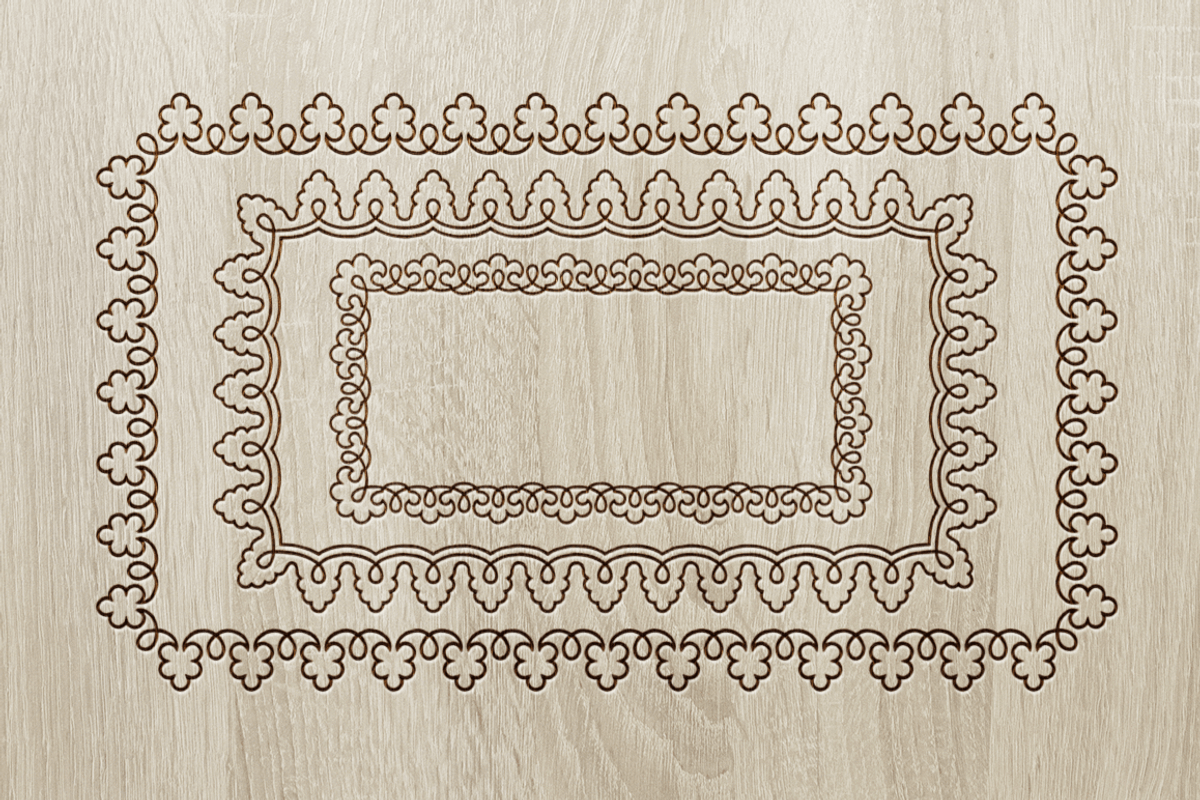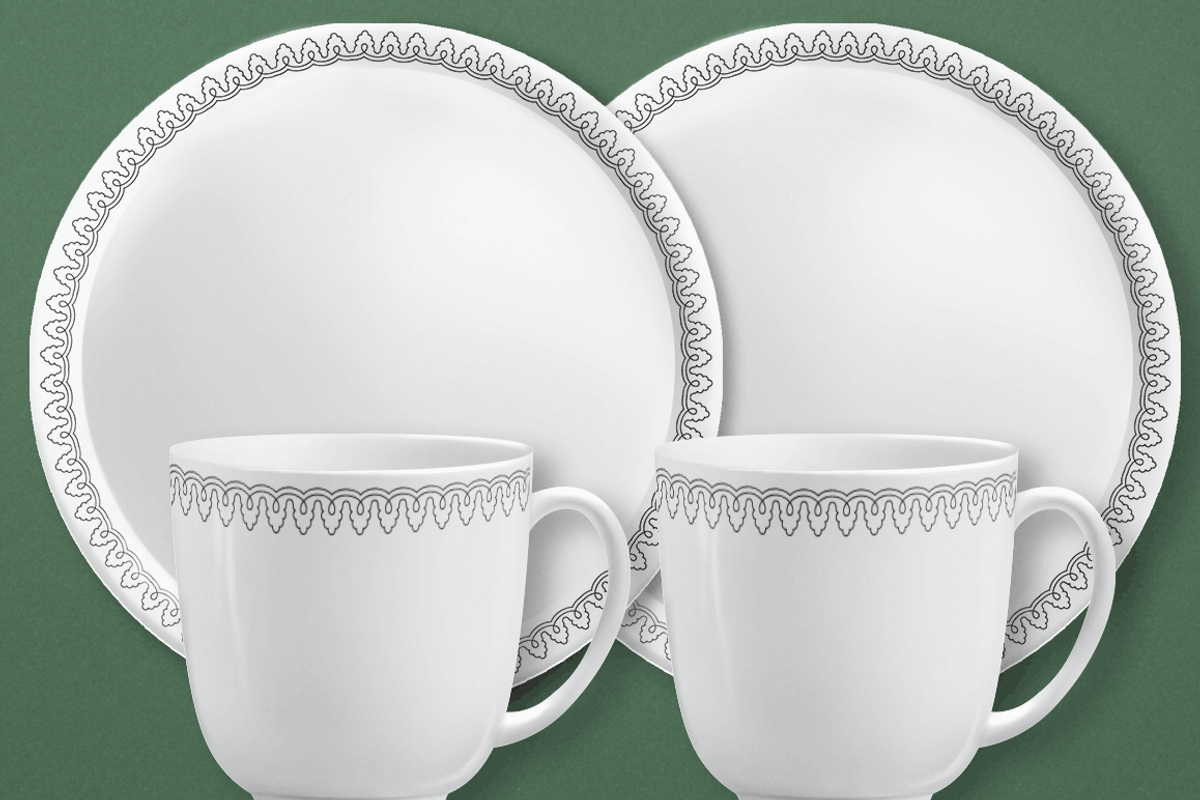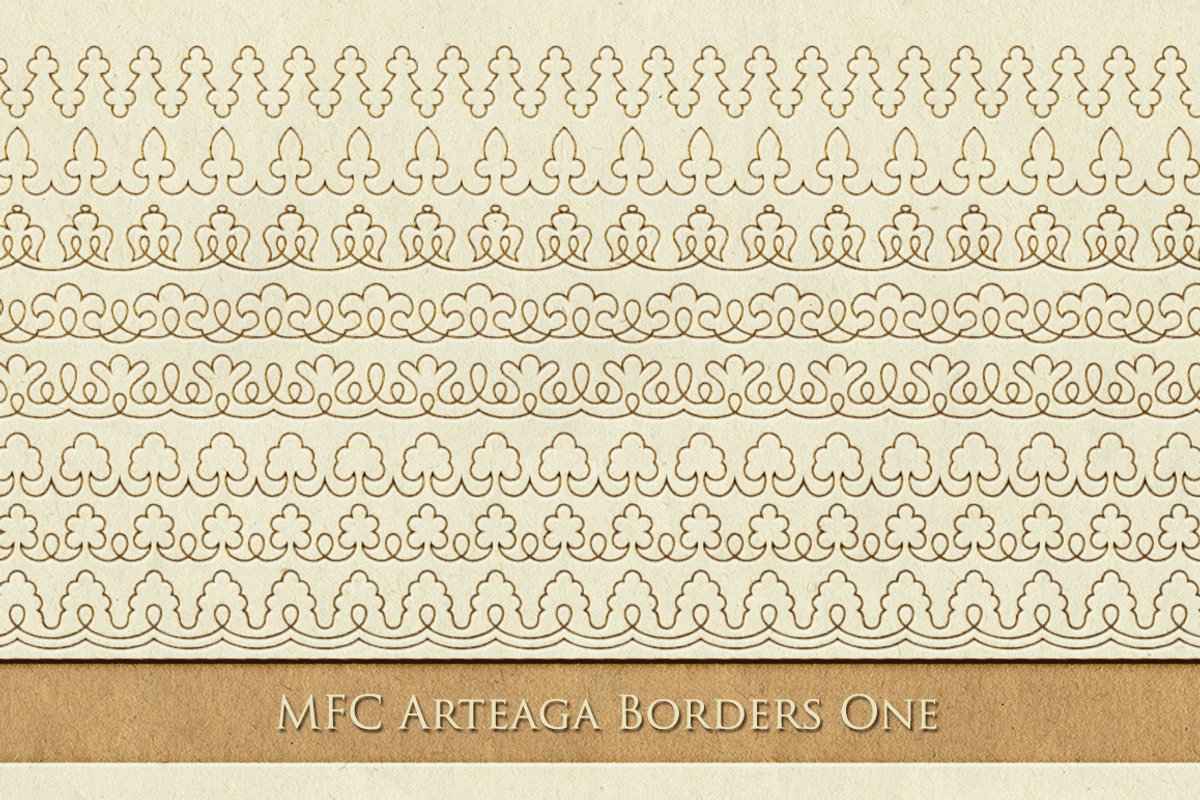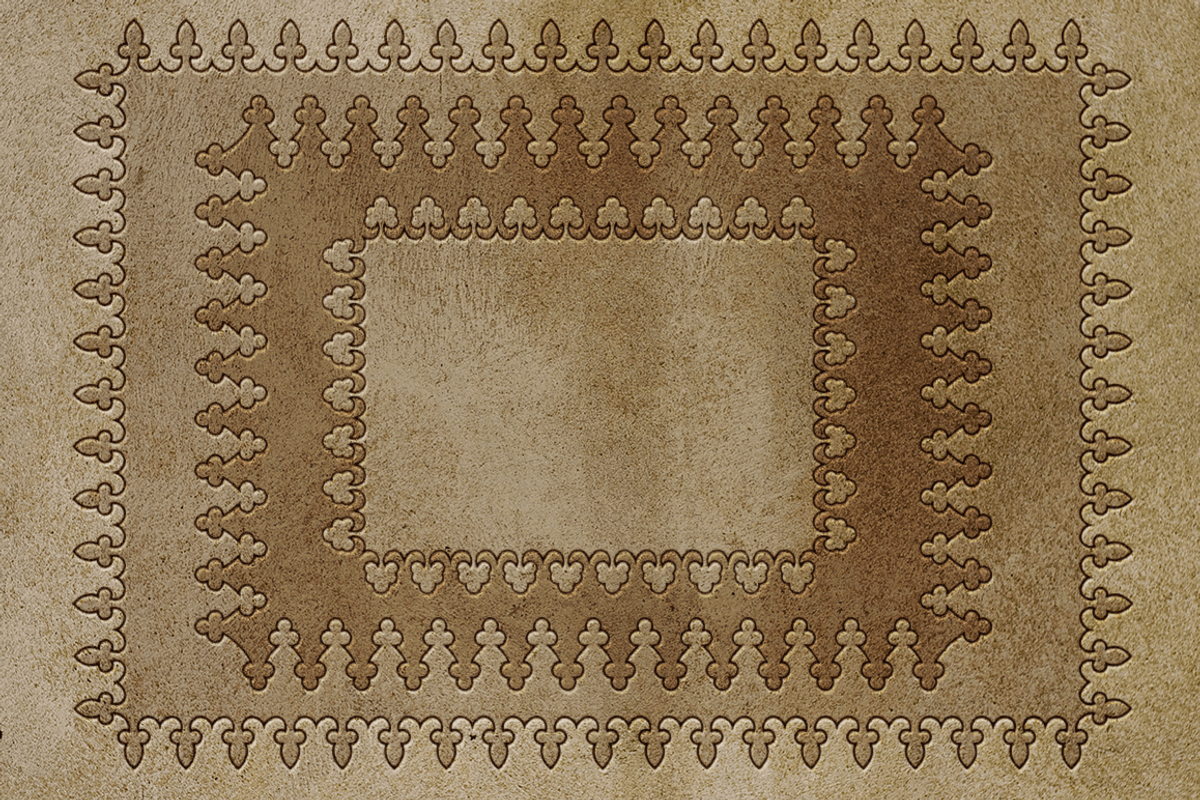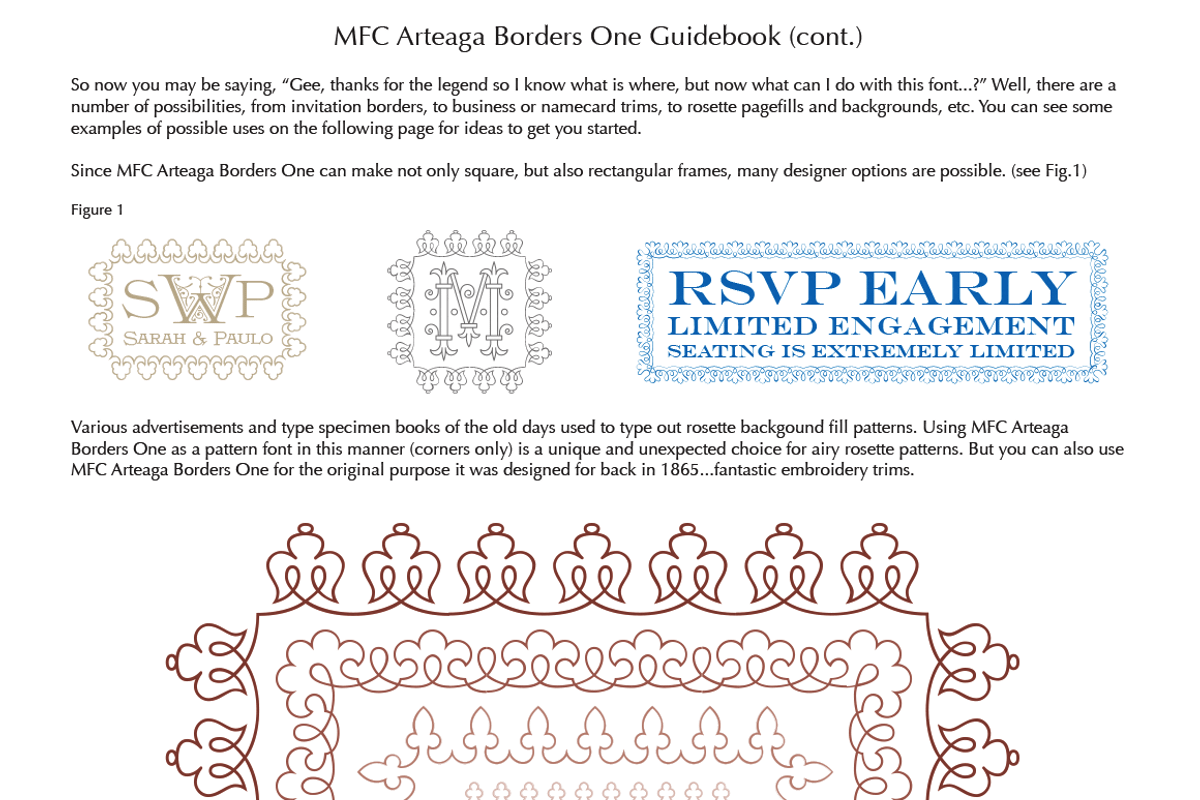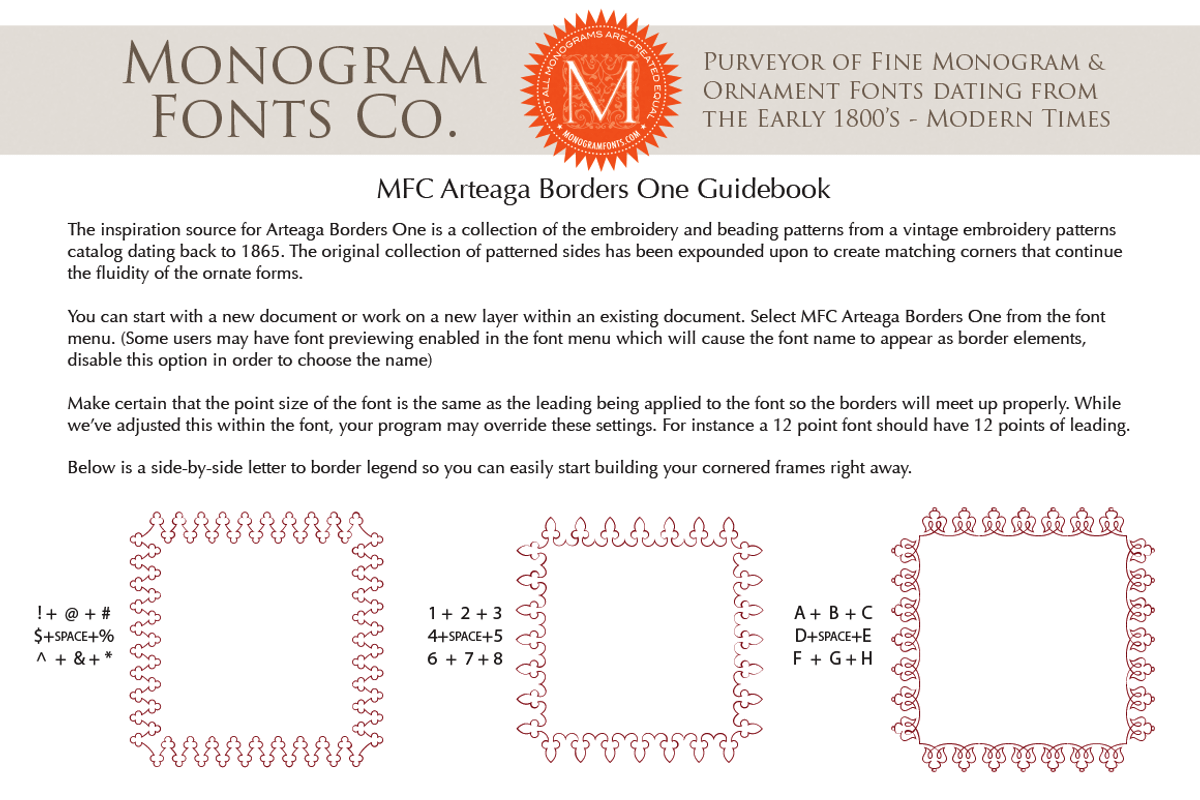
MFC Arteaga Borders One
MFC Arteaga Borders One by Monogram Fonts Co. is a font selected for branding, posters, packaging, typography.
MFC Arteaga Borders One by Monogram Fonts Co. fits naturally into Branding, posters, packaging, typography.